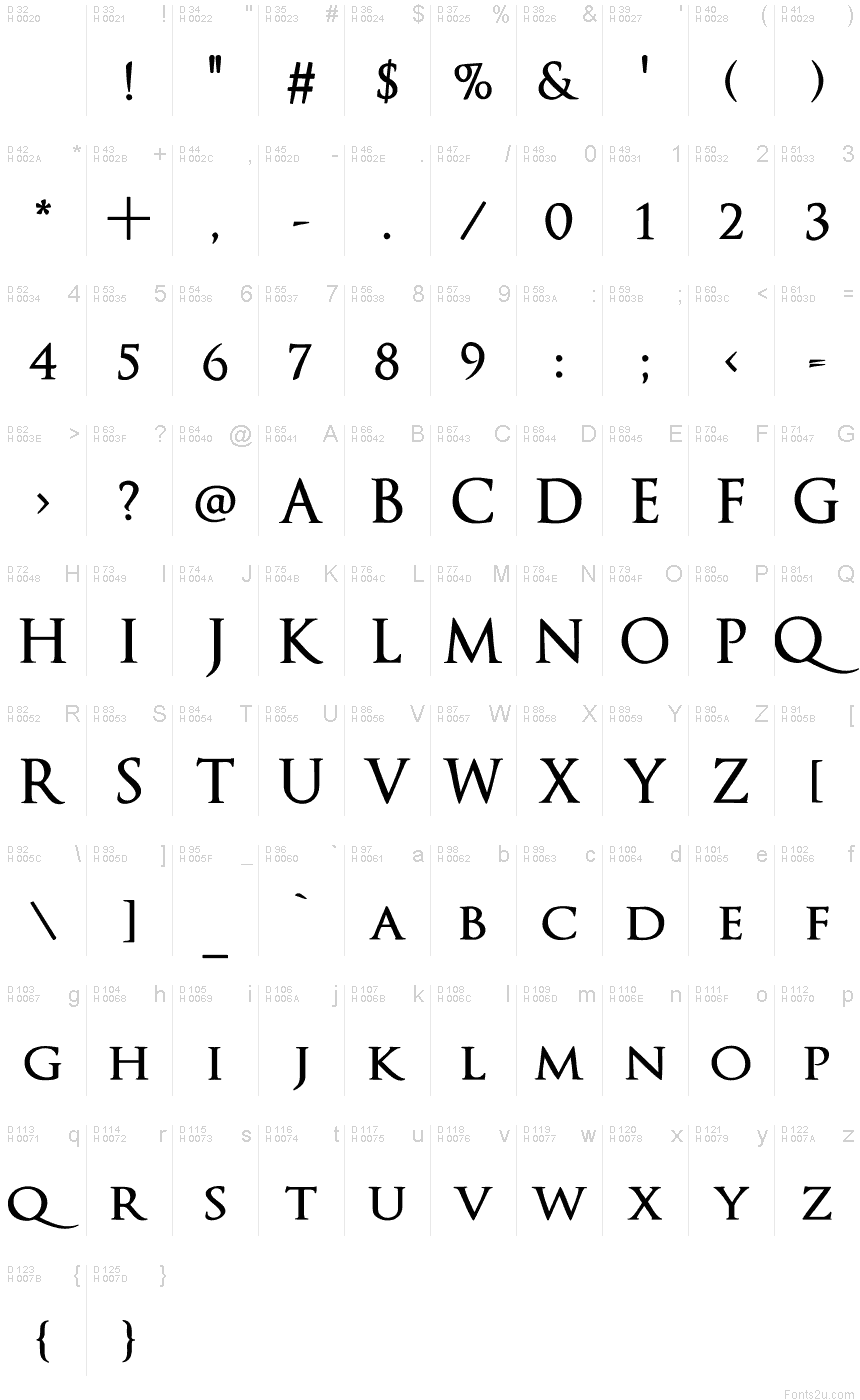
OptimusPrincepsSemiBold
Optimus Princeps SemiBold, a free Roman inscription serif font by M. Klein, draws directly from classical capital lettering with flared strokes and sharply cut wedge serifs. The rhythm is ceremonial rather than decorative, giving the alphabet the measured authority of carved stone instead of a generic book serif.
That makes it a natural choice for museum graphics, historical posters, book covers, film titles, and branding tied to antiquity or civic tradition. Because the forms feel formal and monumental without turning fussy, it can anchor short headlines, chapter openings, commemorative materials, and logo text that needs a distinctly classical voice.